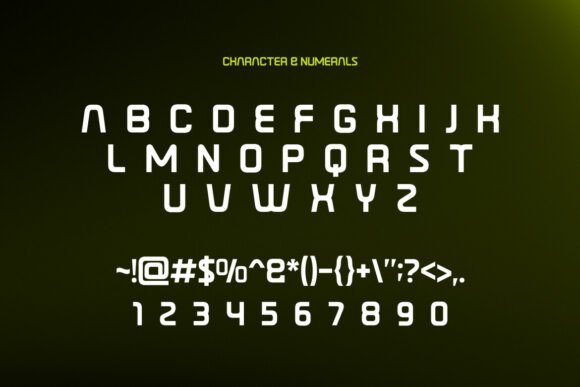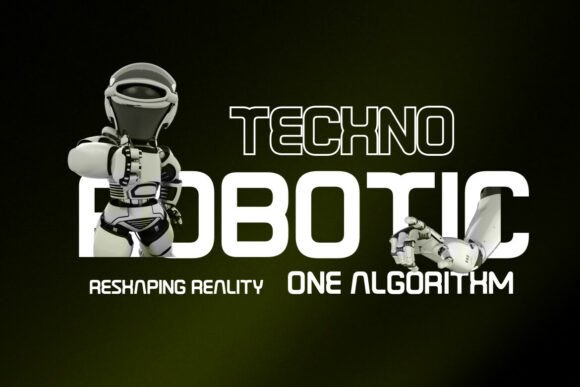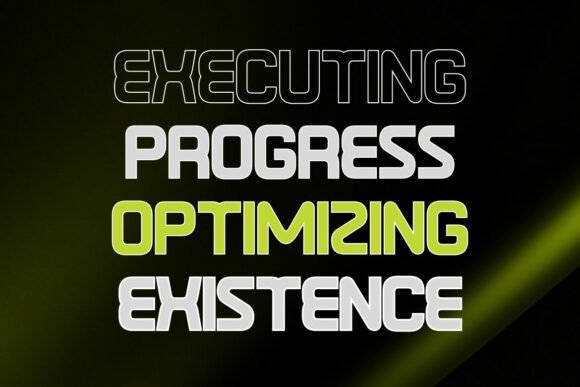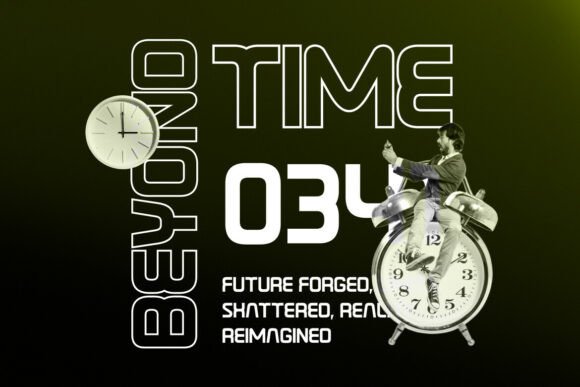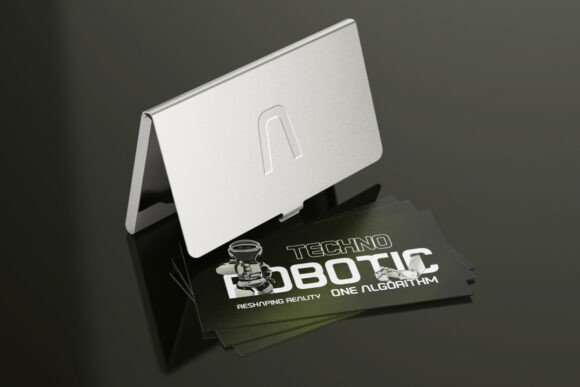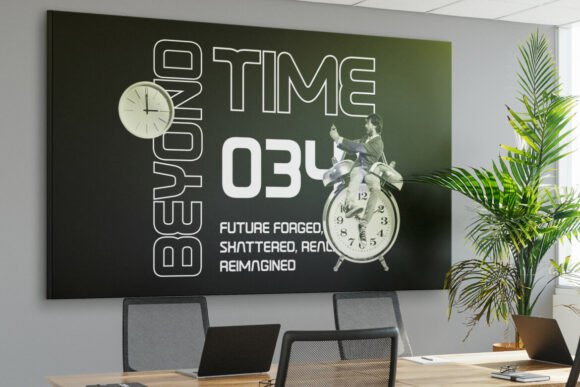
Asterion Font: Elevate Your Designs with a Futuristic Sans-Serif Typeface
In the realm of typography, fonts play a pivotal role in shaping the visual identity of a brand or design. With an array of typefaces available, selecting the right one can significantly impact how your message is perceived. Among the myriad of fonts, Asterion Font stands out as a futuristic sans-serif typeface that embodies the essence of modern design. Designed with smooth geometry, rounded corners, and a clean modern structure, Asterion is poised to revolutionize the way we approach typography in design and digital applications.
The Design Philosophy of Asterion Font
Asterion’s design philosophy revolves around achieving a balance between innovation and readability. Its smooth geometry and rounded corners lend it a soft, approachable feel, while its clean modern structure ensures that it remains crisp and clear across various mediums. This balance is crucial in today’s fast-paced digital landscape, where capturing the audience’s attention and maintaining readability are paramount.
Key Features of Asterion Font
- Balanced Proportions: Asterion’s design ensures that each character is proportionate, making it aesthetically pleasing and highly legible.
- Soft Techno Details: The subtle incorporation of techno elements gives Asterion a contemporary look that feels both innovative and approachable.
- Minimalism with a Sci-Fi Twist: By combining minimalistic design principles with a subtle sci-fi character, Asterion manages to be versatile, suitable for both display and digital applications.
- Contemporary Look: The overall design exudes a modern tone, making it perfect for forward-thinking visual identities.
Applications of Asterion Font
The versatility of Asterion Font makes it an excellent choice for a wide range of applications. Its contemporary look and feel are particularly suited for:
- Digital Media: Websites, mobile apps, and digital advertising benefit from Asterion’s clean and modern appearance, enhancing user experience and engagement.
- Branding and Logos: For businesses looking to project a modern and innovative image, Asterion can be a valuable asset in creating a strong visual identity.
- Display Typography: Whether it’s for billboards, posters, or social media graphics, Asterion’s unique character makes it stand out in display typography.
Why Choose Asterion Font?
Choosing a font for your design project can be overwhelming, given the numerous options available. However, Asterion Font offers several compelling reasons to consider it:
- Legibility: Its balanced design ensures high readability, even at smaller sizes.
- Versatility: Suitable for a wide range of applications, from digital media to print.
- Modern Appeal: Asterion’s futuristic look can help your design stand out in a crowded marketplace.
In conclusion, Asterion Font represents a significant advancement in typography, offering designers and crafters a tool that is both aesthetically pleasing and highly functional. Its unique blend of smooth geometry, rounded corners, and clean structure, combined with its subtle sci-fi character, positions it as a go-to typeface for those aiming to create a modern and innovative visual identity. Whether you’re working on a digital project, crafting a brand’s visual presence, or simply exploring typography, Asterion is undoubtedly worth considering.
Embrace the future of design with Asterion Font, and elevate your projects with a typeface that embodies the perfect fusion of form and function.